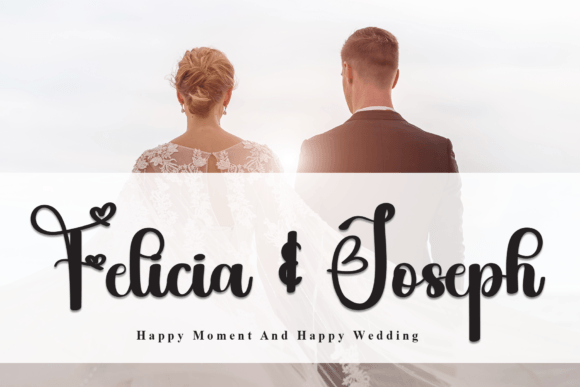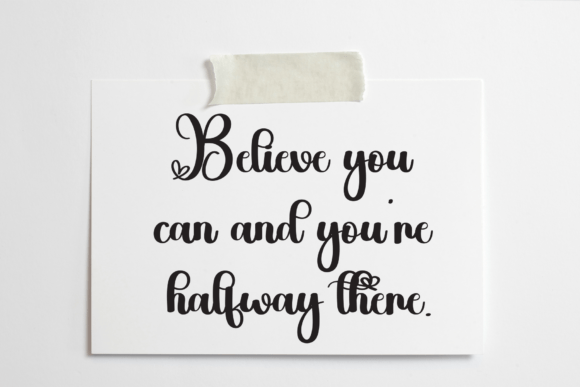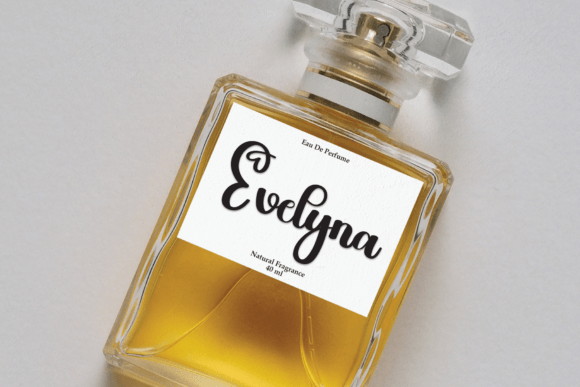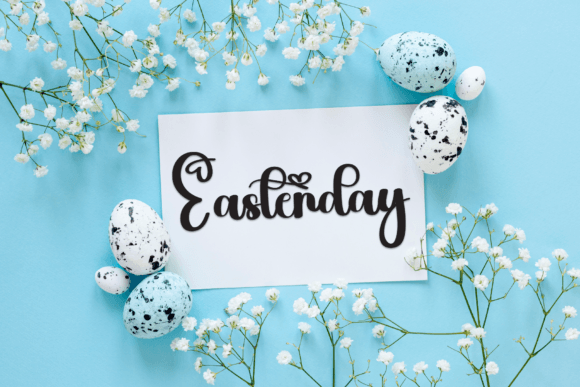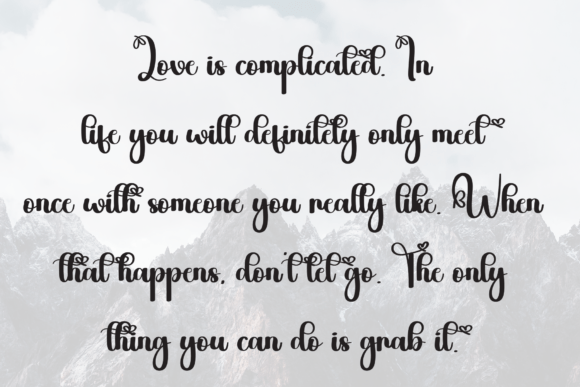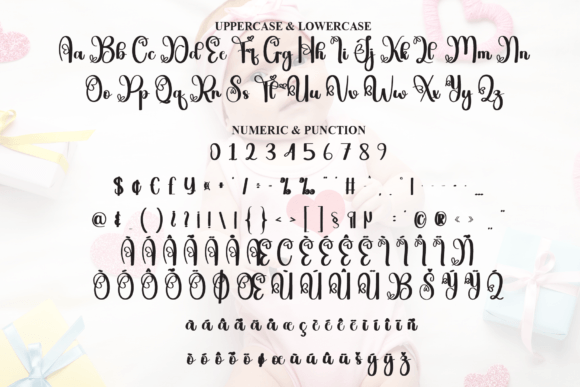
Discover the Magic of Handwritten Charm
Do you remember the moment when you first saw a beautifully designed wedding invitation that made you smile? Perhaps it was the way the words danced across the page, or the whimsical touch that made it feel truly special. Whatever it was, it’s moments like these that remind us of the power of design to bring joy and wonder into our lives.
That’s where the Babyday Font comes in – a delightful, handwritten font that’s perfect for adding a sprinkle of magic to your designs. Whether you’re crafting wedding invitations, cards, or any other project that needs a dash of warmth and personality, Babyday Font is the perfect tool to help you achieve your creative vision.
With its friendly, enchanting personality, Babyday Font is a valuable addition to any designer’s toolkit. Its unique charm will elevate your designs and leave a lasting impression on your audience, making it a must-have for anyone looking to add a little extra magic to their work.
Babyday Font Key Features
• Font Family: Babyday Font comes in 3 font families – Babyday Regular, Babyday Bold, and Babyday Italic.
• Size: The font family includes a range of sizes, from 8pt to 72pt, to accommodate various design needs.
• Resolution: Designed for high-resolution displays, making it ideal for digital applications.
• Unique Characteristics: Features a playful, cursive style with rounded edges and smooth connections, perfect for creating a friendly and approachable atmosphere.
Designer Review: Babyday Font
I recently had the chance to work with the Babyday Font, and I’m excited to share my honest review with you.
• Unique and playful style: The Babyday Font has a distinct, whimsical feel that’s perfect for children’s content, nursery decor, or any project that needs a touch of innocence.
• High-quality glyphs: The font’s design is well-executed, with clear, legible characters that are suitable for both digital and print use.
• Good font pairing options: Babyday Font can be paired with a range of other fonts to create visually appealing and balanced designs.
• Limited language support: The font may not include glyphs for non-Latin scripts, which could be a limitation for global or multilingual projects.
• No bold or italic styles: Babyday Font is available in a single weight, which might not be suitable for projects that require emphasis or contrast.
Overall, I think the Babyday Font is a great choice for projects that require a playful, innocent feel. While it may have some limitations, its unique style and high-quality glyphs make it a worthwhile addition to any designer’s toolkit.
Tips for Getting the Most Out of Babyday Font
Use Babyday Font for children’s book illustrations, nursery decor, and other projects that require a playful and whimsical touch.
Experiment with different font sizes, colors, and styles to create a unique and eye-catching design.
Combine Babyday Font with other creative elements, such as illustrations and graphics, to create a visually appealing design.
Babyday Font is perfect for:
Children’s book illustrations
Nursery decor and wall art
Party invitations and decorations
Product packaging and branding